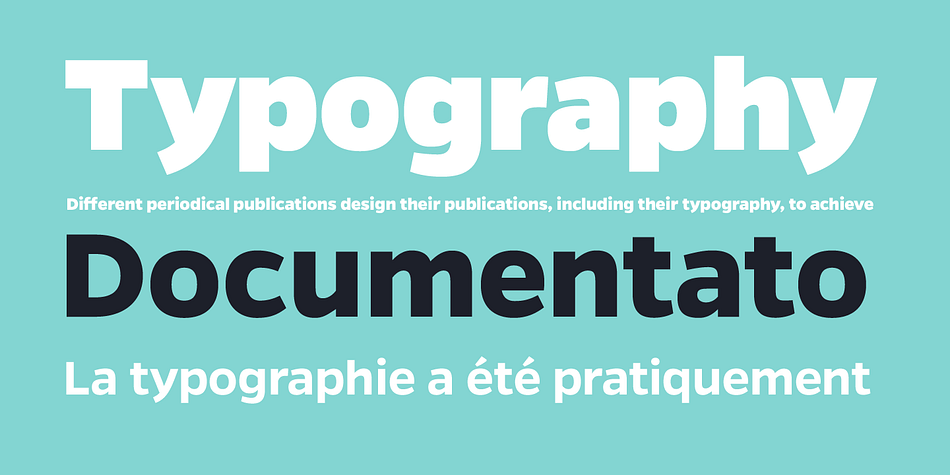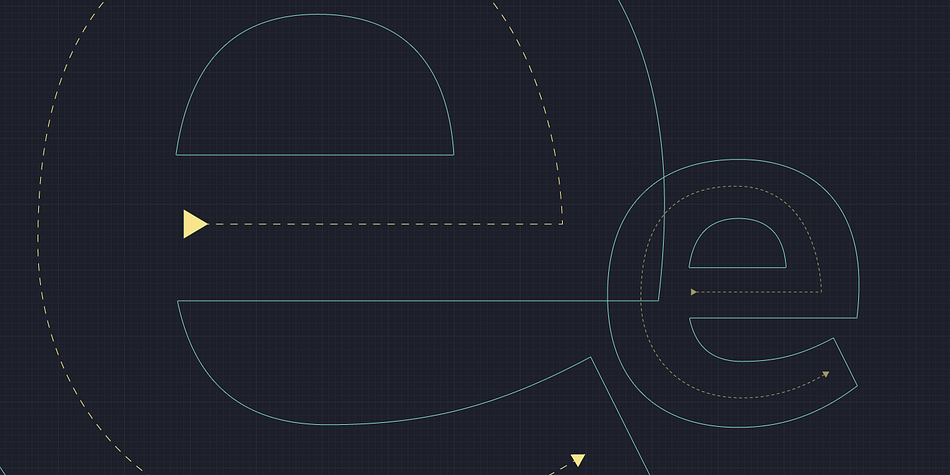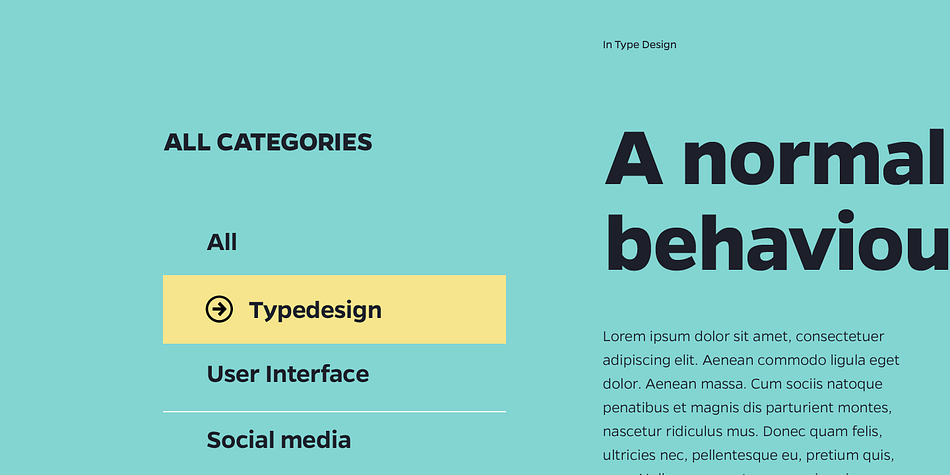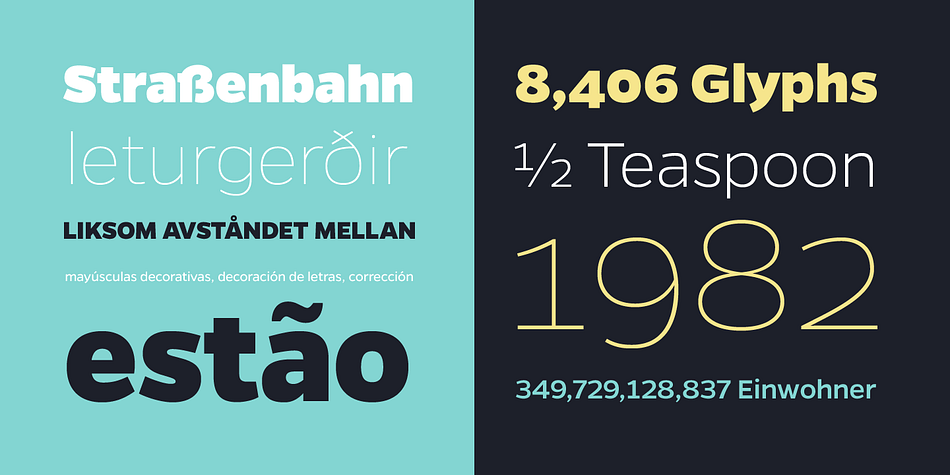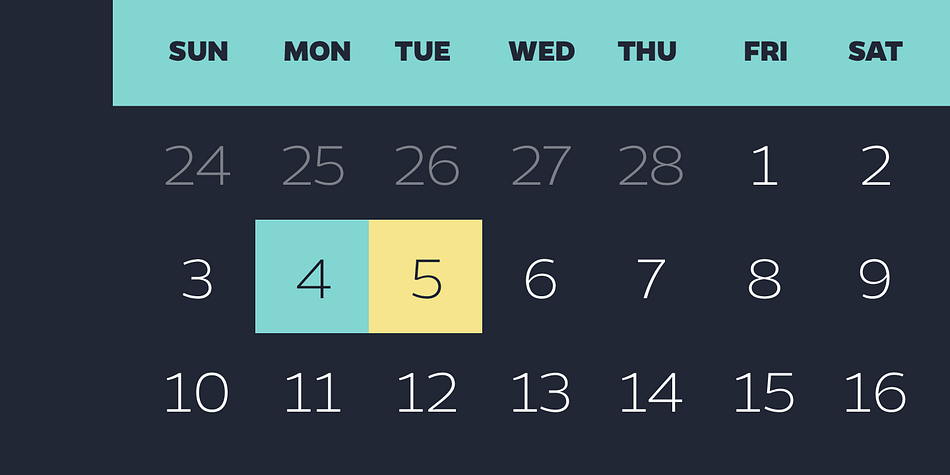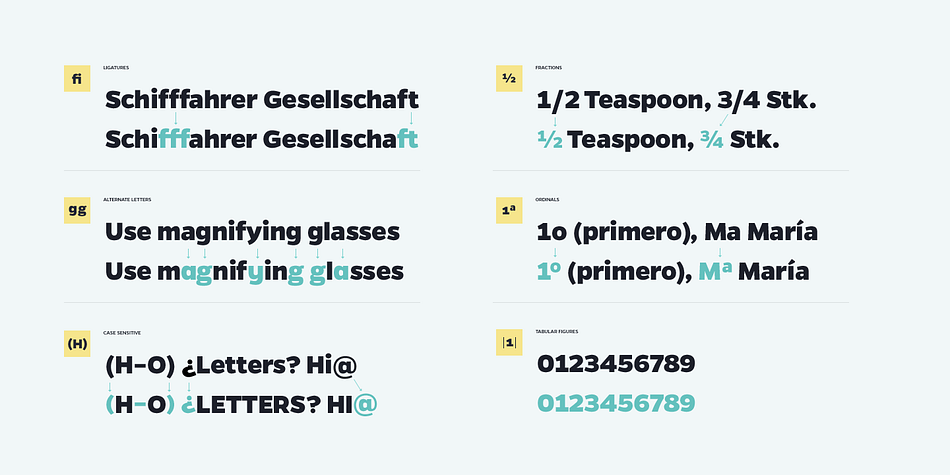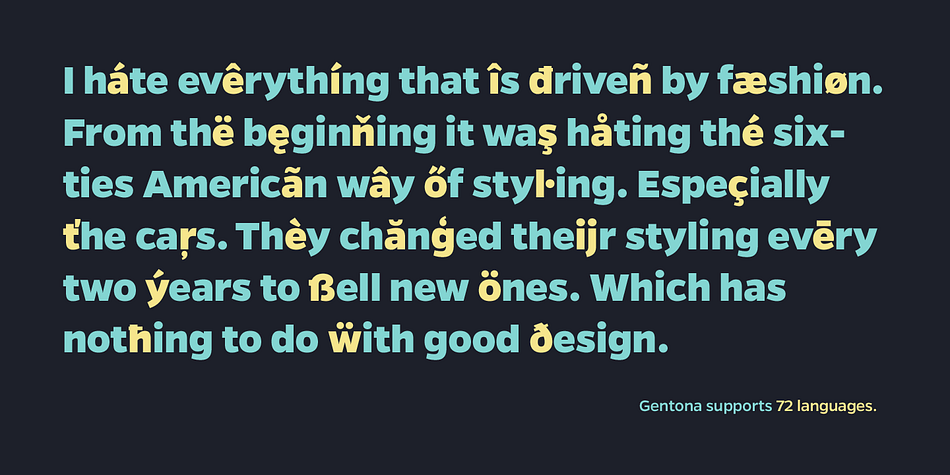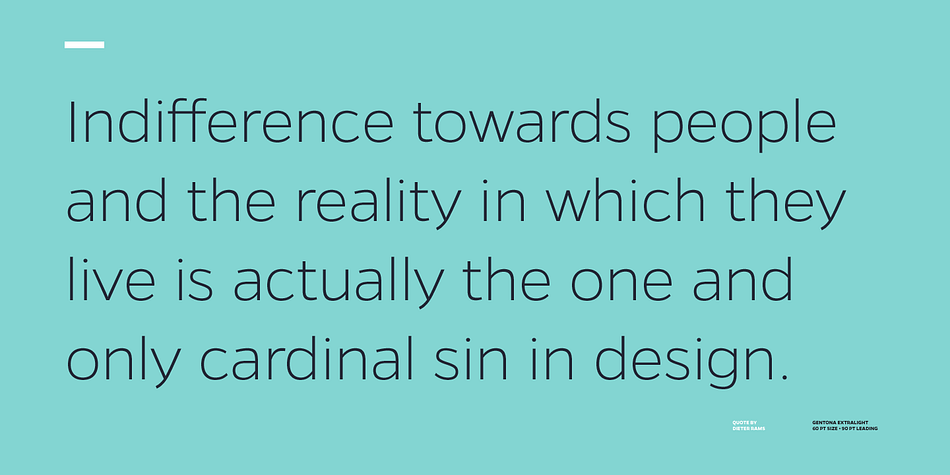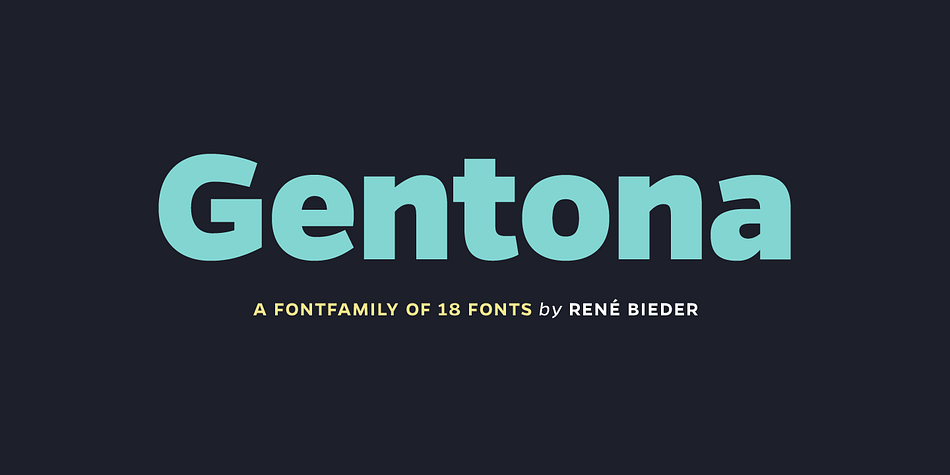
Gentona is a sans serif font family. This typeface has twenty styles and was published by René Bieder.
Designed for a wide range of applications, Gentona was intended to support the goals of contemporary design paired with a mostly swiss oriented demand on typography – neutrality. The result is a nine-weight neo-grotesque family ranging from sharp and fine thin cuts to muscle-bound and strong heavy weights. Gentona’s confident and open shapes support legibility especially in small sizes while its alternative shapes and letterforms create flexibility. A wide range of typographic features round up the whole family.